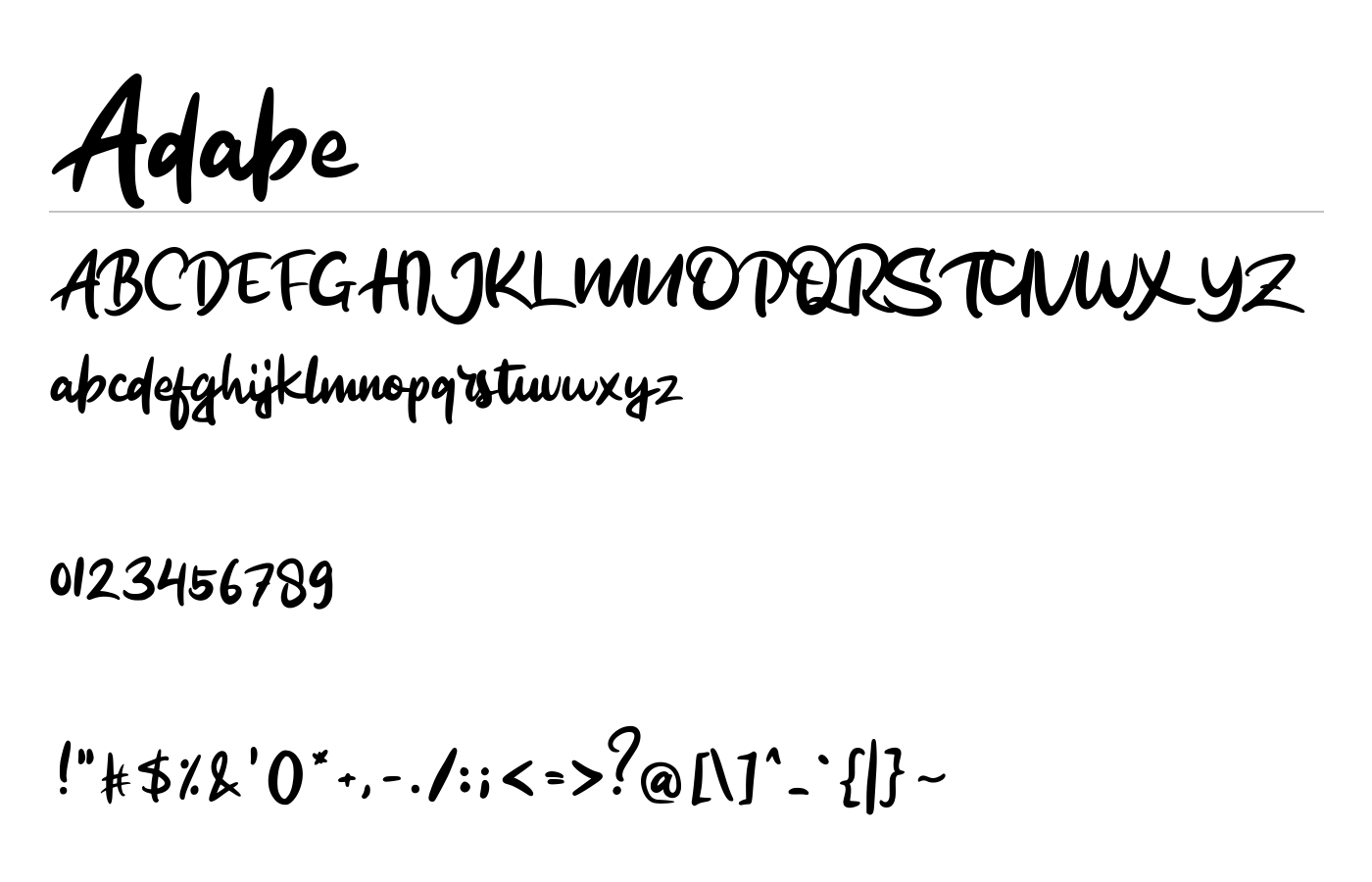
Adabe is a lively handwritten script font with a casual, friendly feel created by its smooth, flowing strokes and moderate contrast. Its design features rounded forms and a relaxed rhythm that make it perfect for personal branding, informal invitations, or creative projects that seek to convey warmth and approachability. This font works well in headlines, logos, and packaging where a natural, hand-crafted touch is desired.
Adabe Font
About Adabe Font